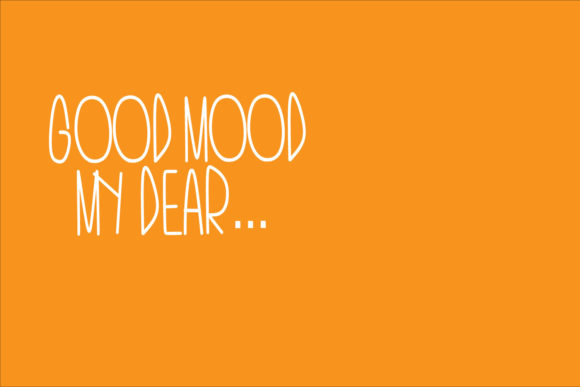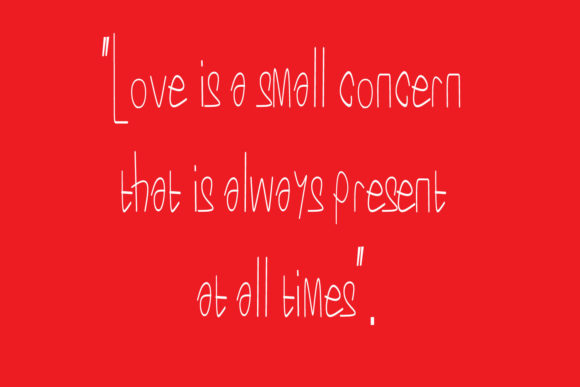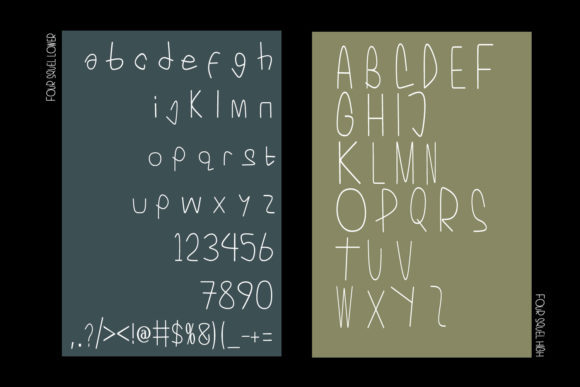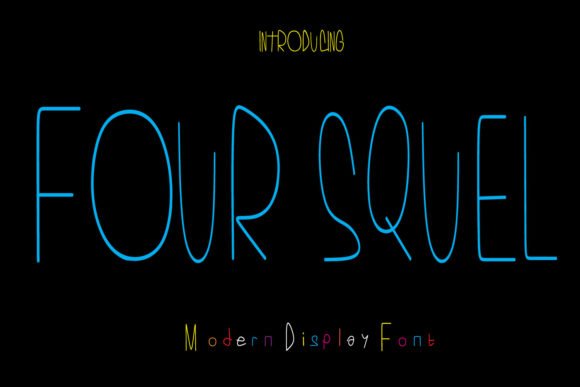
Introduction to Four Squel Font
Four Squel is a stylish and simple display font.
It has a clean, thin and smooth vibe and it will be a hit for any design that you want to add it to .